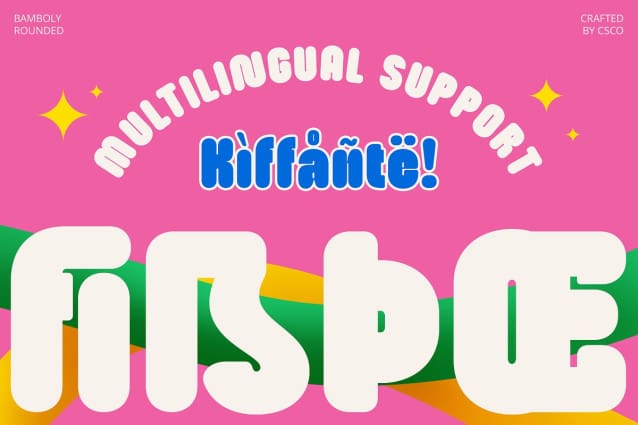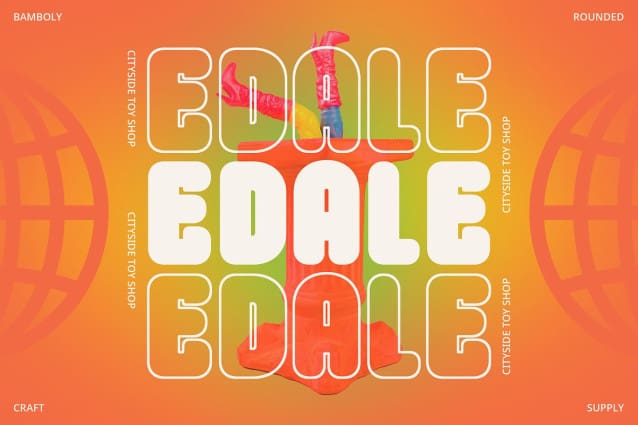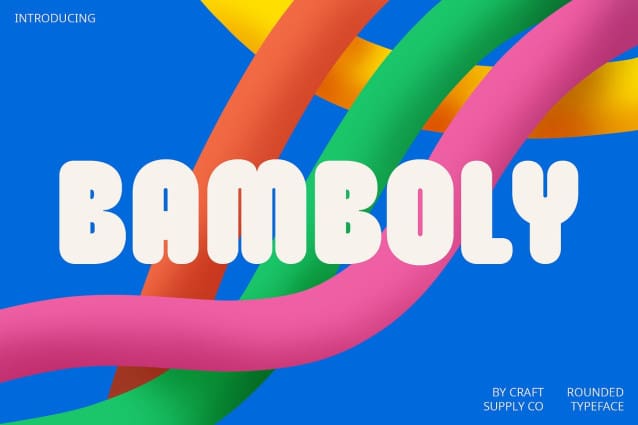
Bamboly Rounded Font
Bamboly Rounded Font is a bold sans serif font characterized by its rounded edges, blending strong, easy-to-read features with a soft and modern touch. This font strikes a balance between boldness and approachability, making it ideal for designs that require clarity and visual impact.
Versatile Application The bold form of Bamboly Rounded ensures visibility and readability, while its rounded ends add a friendly and contemporary feel. Perfect for logos, titles, web layouts, and promotional materials, this font enhances designs seeking a simple yet inviting appearance that attracts attention effortlessly.
Modern Aesthetic Bamboly Rounded’s combination of strength and friendliness makes it a versatile choice across various design contexts. Whether creating a striking brand identity or designing user-friendly interfaces, this font adds a modern aesthetic with a touch of approachable charm.